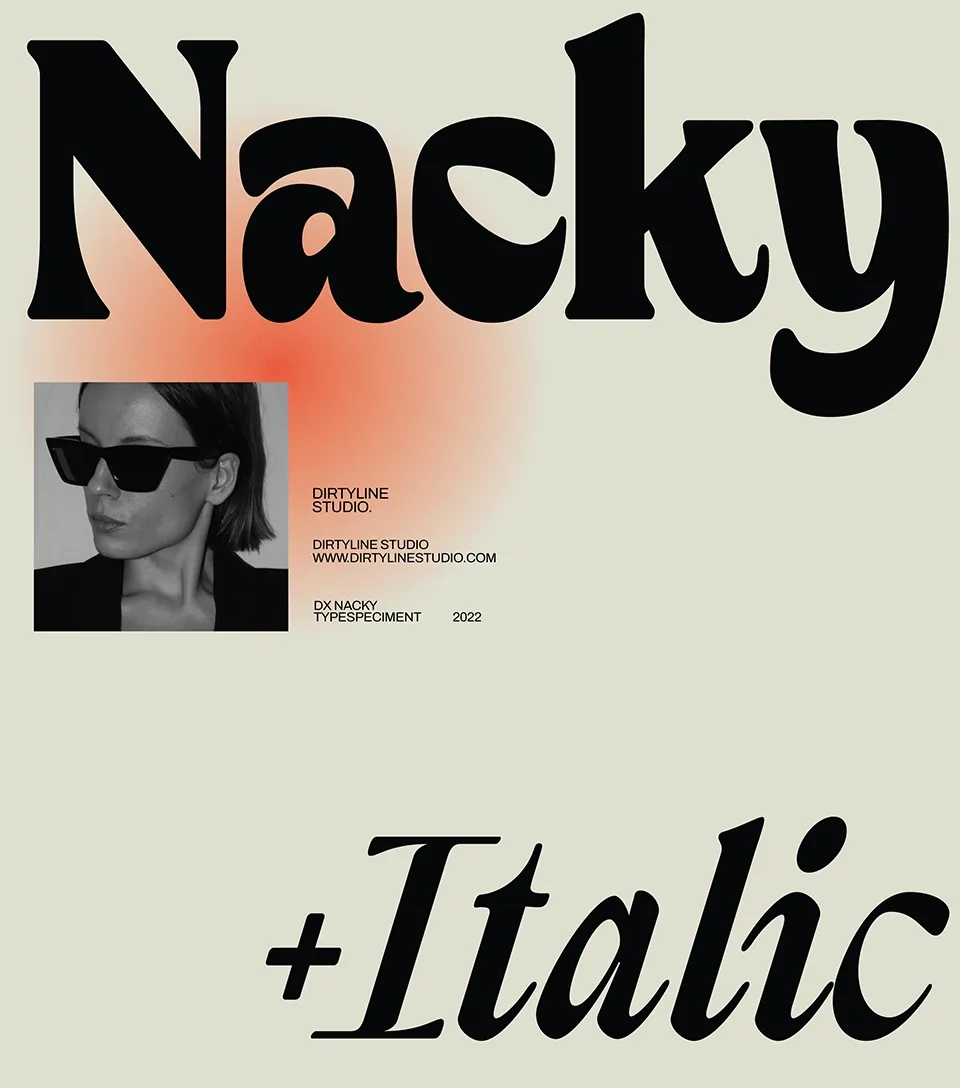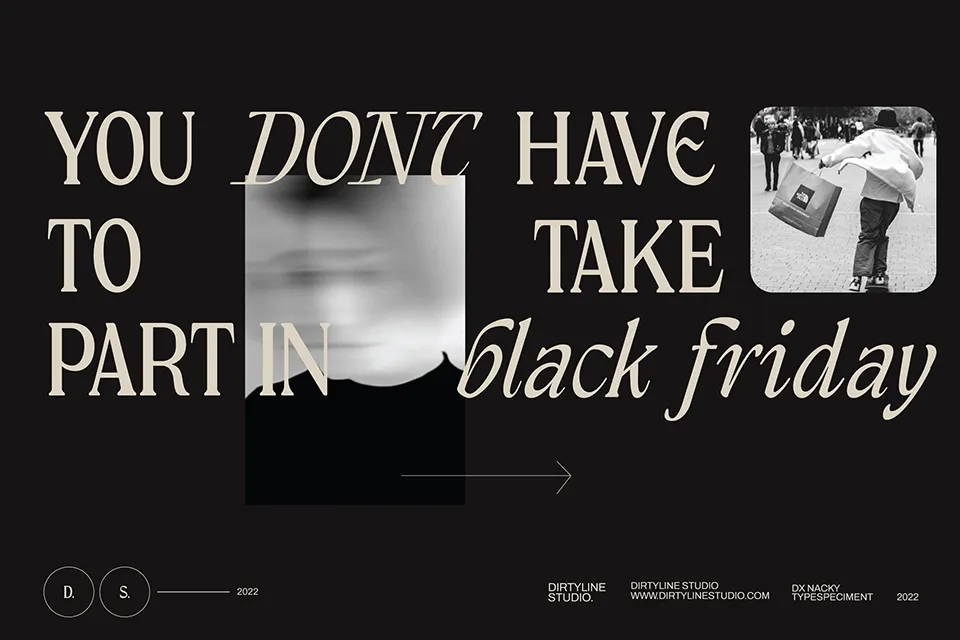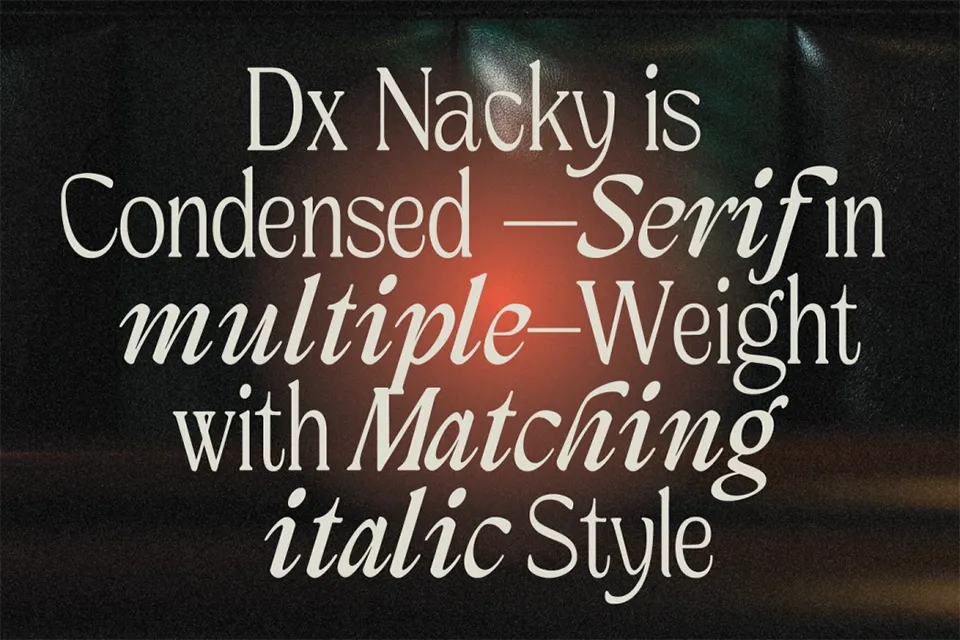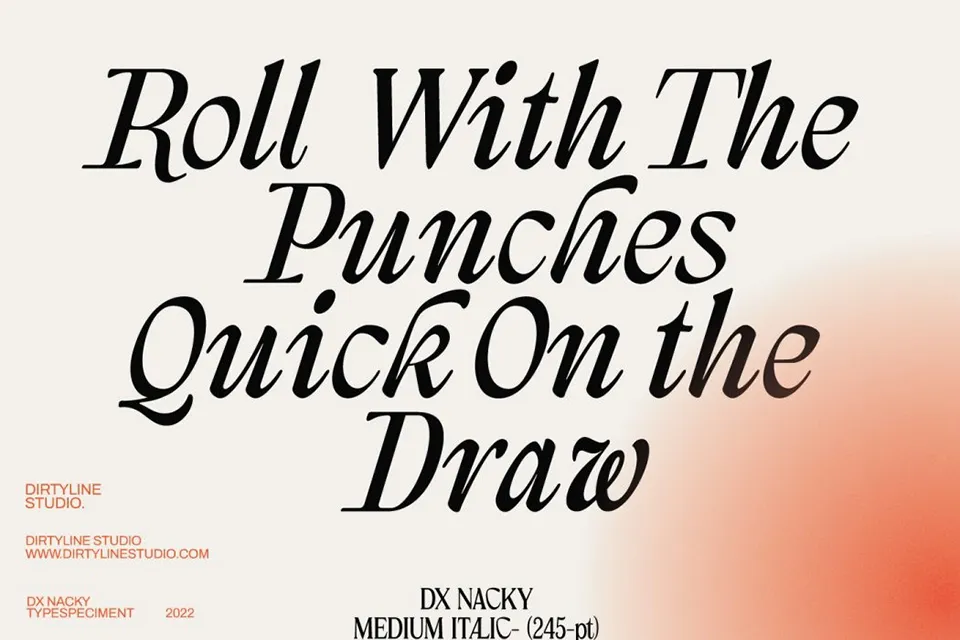
Dx Nacky Font
Dx Nacky Font is a condensed serif font designed by Dirtyline Studio. This typeface brings personality, especially noted in its unique ‘a’ character, and is crafted primarily for impactful display text like titles. Dx Nacky blends a mid-90s retro vibe with a rich, contemporary feel. Its lighter weights offer elegance and subtlety, making them suitable for fashion branding or magazines. The regular weight ensures clear legibility for longer text while still giving content a distinctive style. Available in OTF and web font formats, Dx Nacky provides a unique aesthetic for various design projects.